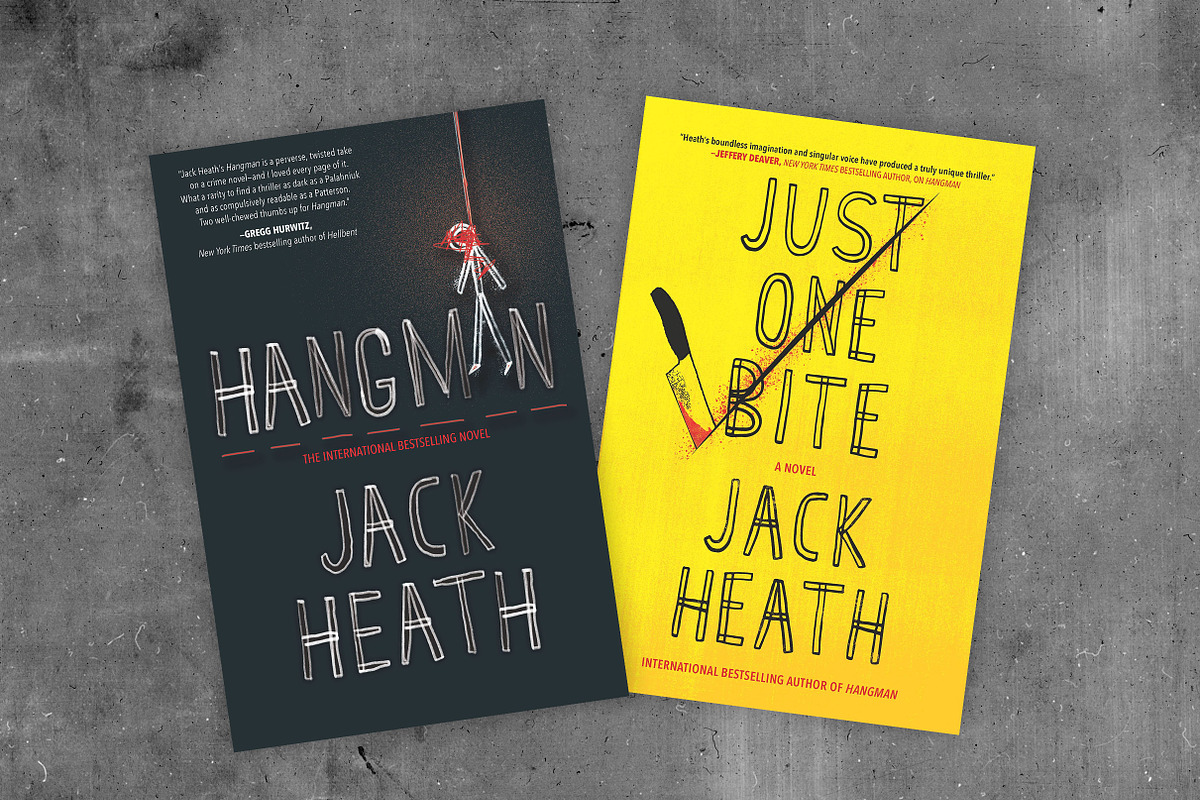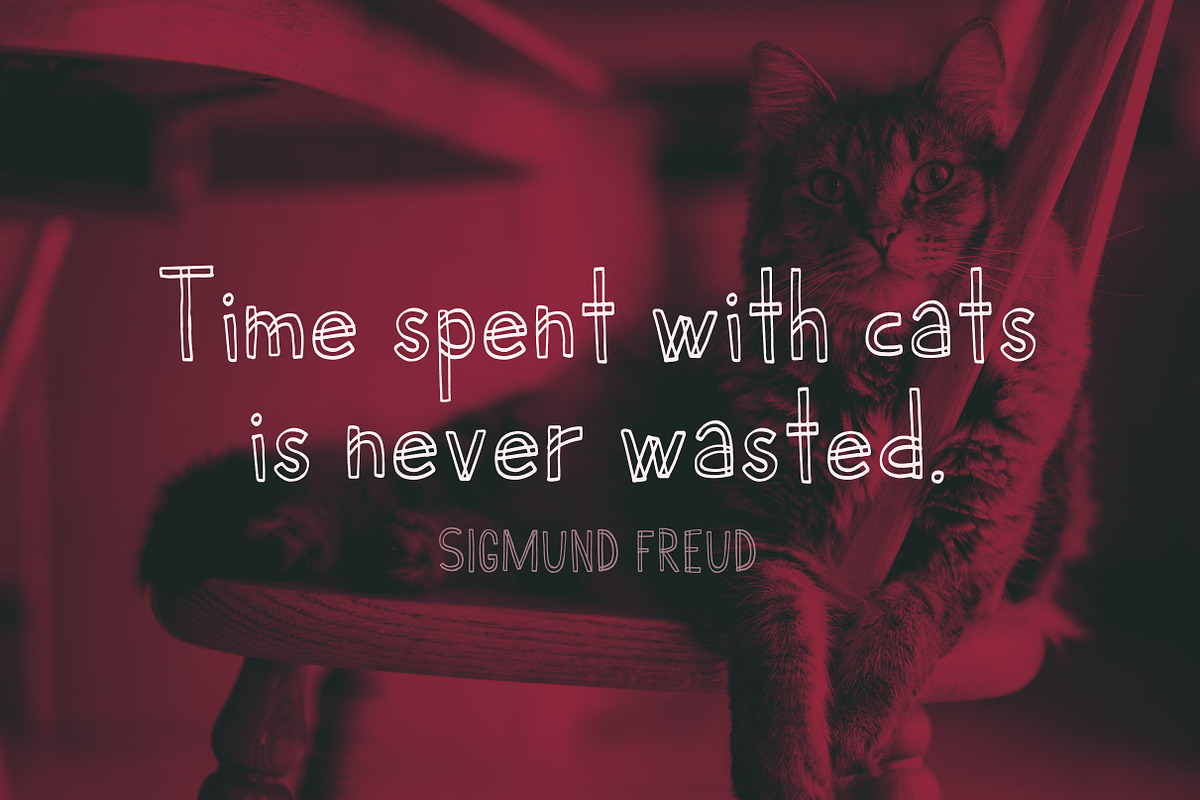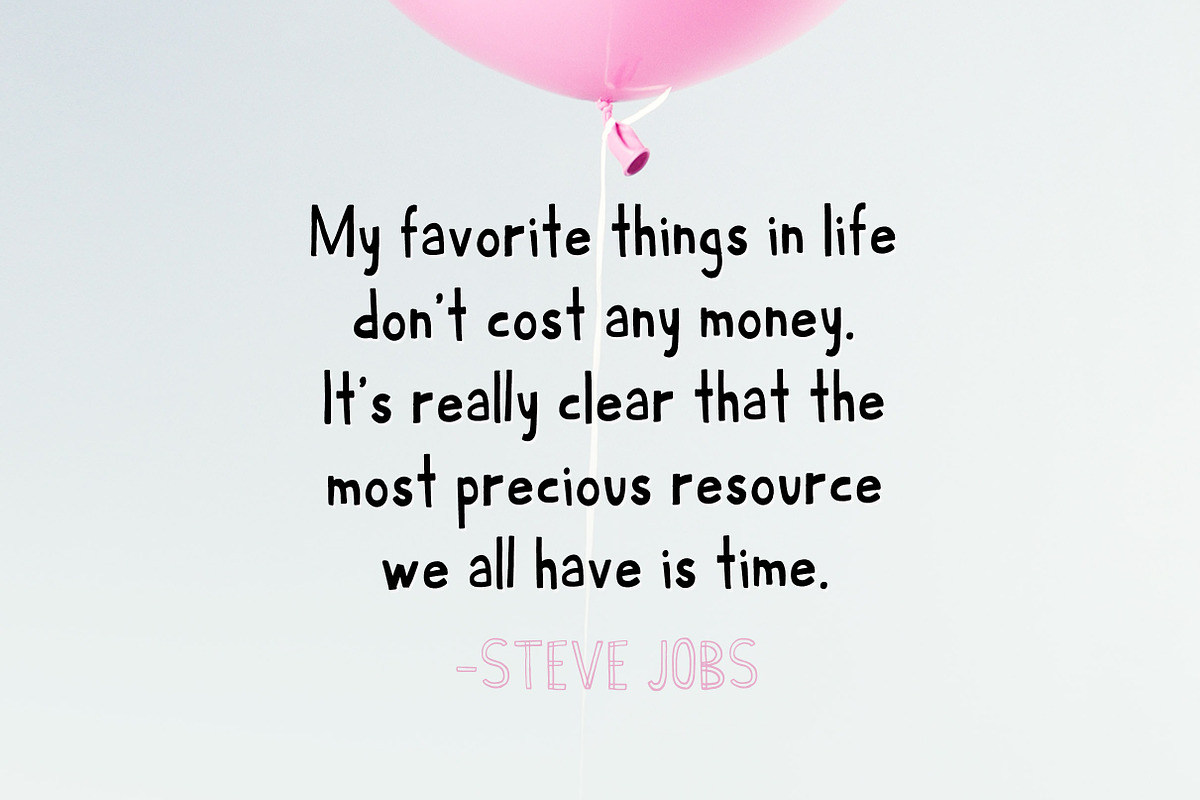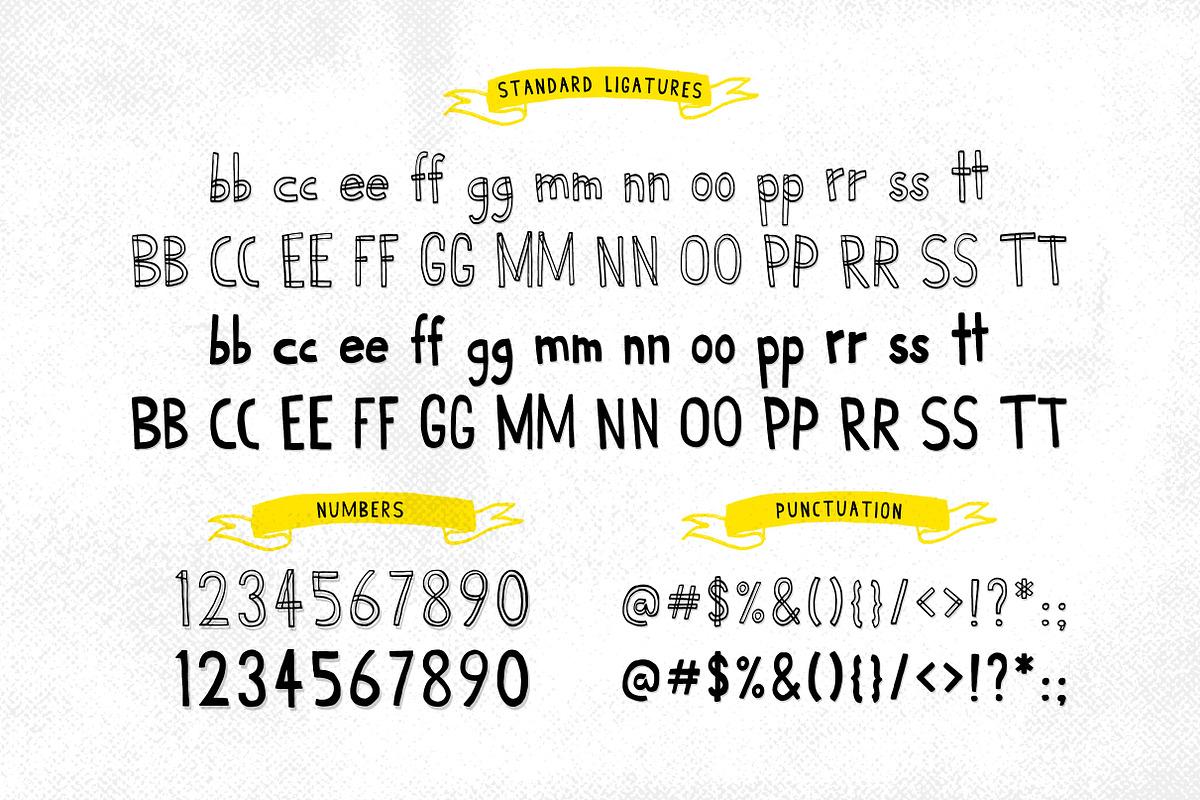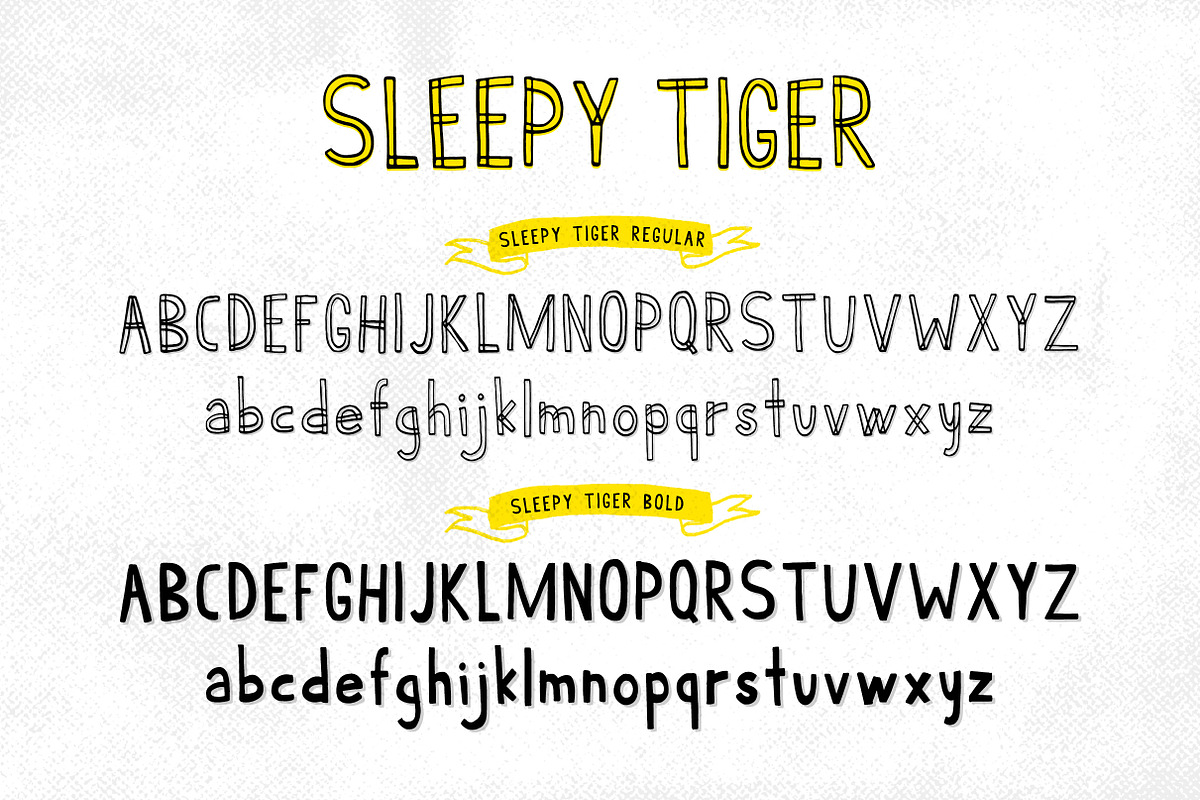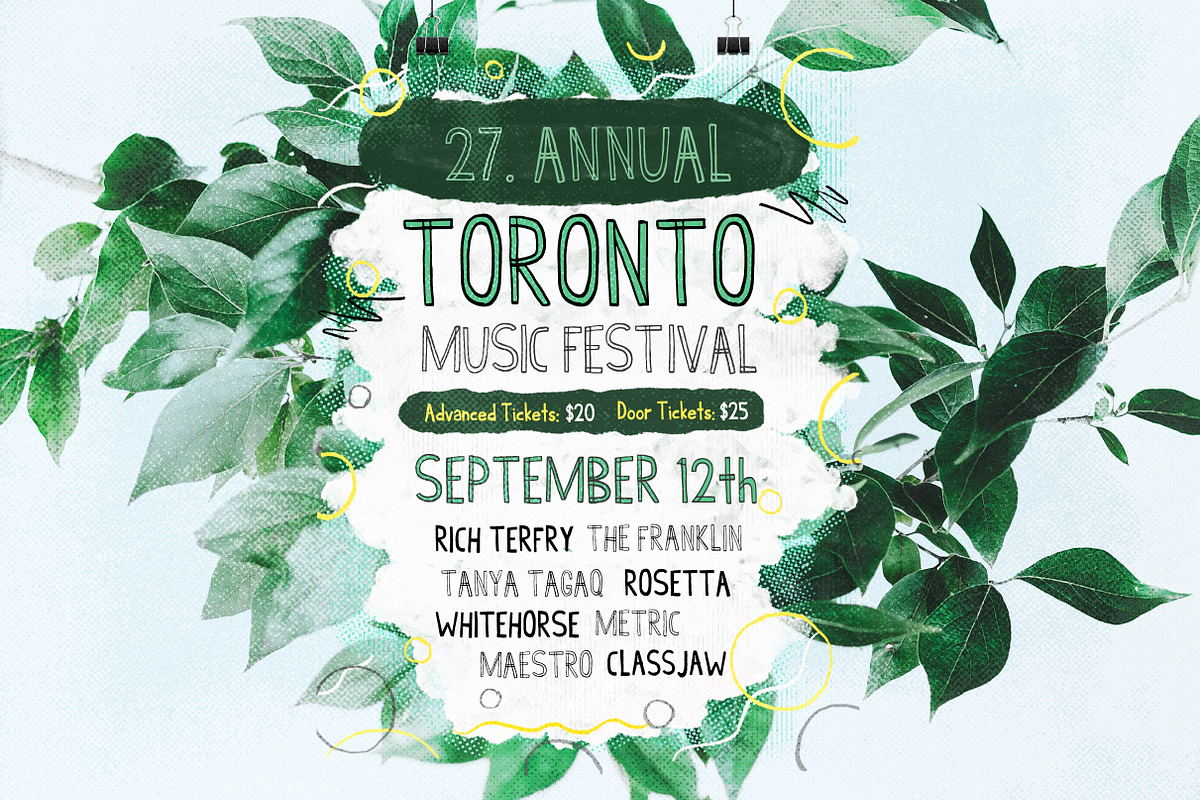
Sleepy Tiger - Font Duo
Sleepy Tiger is a playful & fun sans serif font duo.
Perfect for posters, comics, cartoons, invitation, packaging. etc...
- SleepyTiger Regular
- Sleepytiger Bold
Sleepy Tiger - Font Duo by 3ora fits naturally into Branding, posters, packaging, typography.